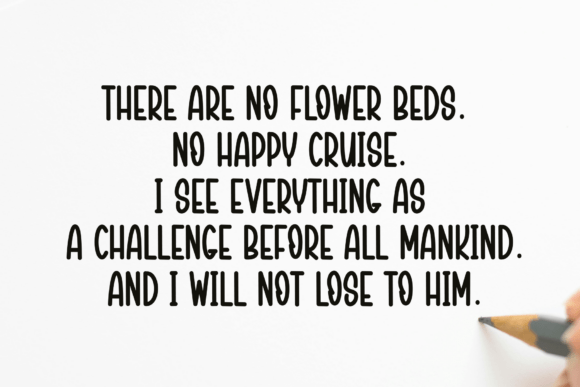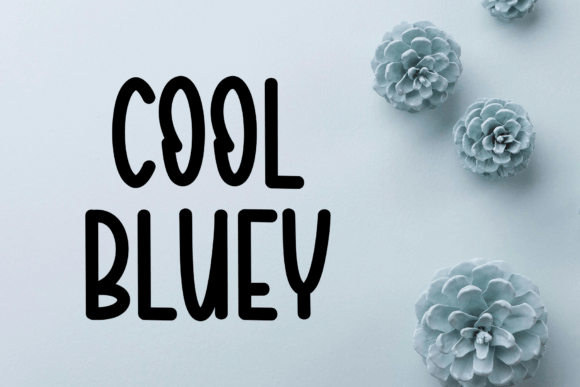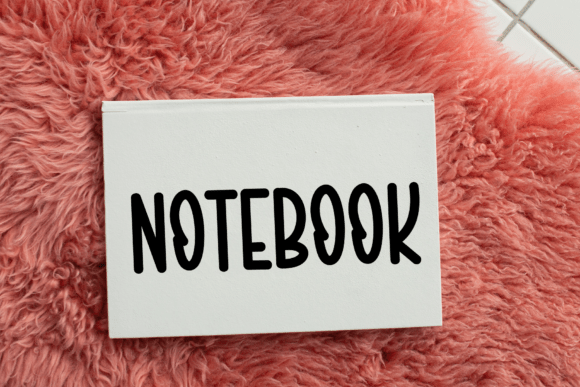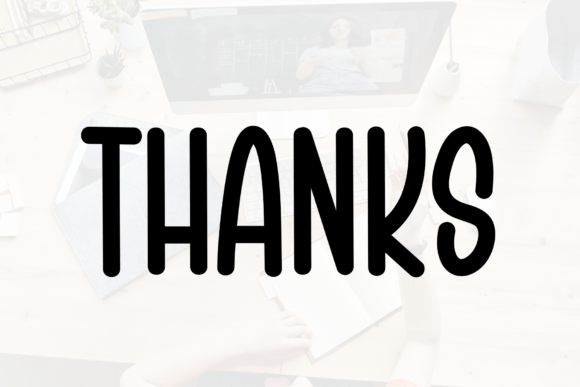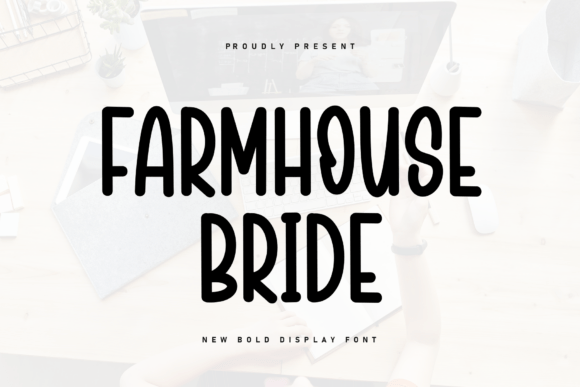
Introducing Farmhouse Bride Font: The Perfect Blend of Elegance and Casual Charm
Are you a designer or crafter looking for a font that exudes a sense of luxury, elegance, and casual sophistication? Look no further than the Farmhouse Bride Font. This beautiful handwritten font is designed to resemble marker-drawn text, giving it a relaxed and sporty feel that’s perfect for a wide range of design applications.
What is Farmhouse Bride Font?
Farmhouse Bride is a unique and versatile font that’s ideal for creating stunning branding, logos, wedding supplies, greeting cards, fashion lookbooks, marketing promotions, and more. Its distinctive marker-drawn style gives it a friendly, approachable feel that’s sure to capture the attention of your audience.
Key Features of Farmhouse Bride Font
- Handwritten style: Farmhouse Bride Font boasts a beautiful, handwritten style that’s perfect for creating personalized and bespoke designs.
- Marker-drawn texture: The font’s marker-drawn texture gives it a relaxed, casual feel that’s ideal for designs that need to convey a sense of friendliness and approachability.
- Luxurious and elegant: Despite its casual feel, Farmhouse Bride Font still manages to convey a sense of luxury and elegance, making it perfect for high-end designs.
- Versatile: This font is incredibly versatile and can be used for a wide range of design applications, from branding and logos to wedding supplies and marketing promotions.
Use Cases for Farmhouse Bride Font
So, what can you use Farmhouse Bride Font for? The possibilities are endless! Here are a few ideas to get you started:
- Branding and logos: Create a unique and memorable brand identity with Farmhouse Bride Font.
- Wedding supplies: Use this font to create beautiful wedding invitations, stationery, and other wedding-related designs.
- Greeting cards: Add a personal touch to your greeting cards with Farmhouse Bride Font.
- Fashion lookbooks: Create stunning fashion lookbooks with this elegant and sophisticated font.
- Marketing promotions: Use Farmhouse Bride Font to create eye-catching marketing promotions that capture the attention of your target audience.
Why Choose Farmhouse Bride Font?
With so many fonts to choose from, why should you choose Farmhouse Bride Font? Here are just a few reasons:
- Unique style: Farmhouse Bride Font has a unique and distinctive style that’s sure to set your designs apart from the crowd.
- High-quality design: Farmhouse Bride Font is designed to the highest standards, ensuring that your designs look professional and polished.
In conclusion, Farmhouse Bride Font is a beautiful and versatile font that’s perfect for designers and crafters looking to add a touch of elegance and sophistication to their designs. With its unique marker-drawn style, relaxed and sporty feel, and wide range of use cases, this font is sure to become a favorite in your design toolkit. So why wait? Download Farmhouse Bride Font today and start creating stunning designs that capture the attention of your audience.